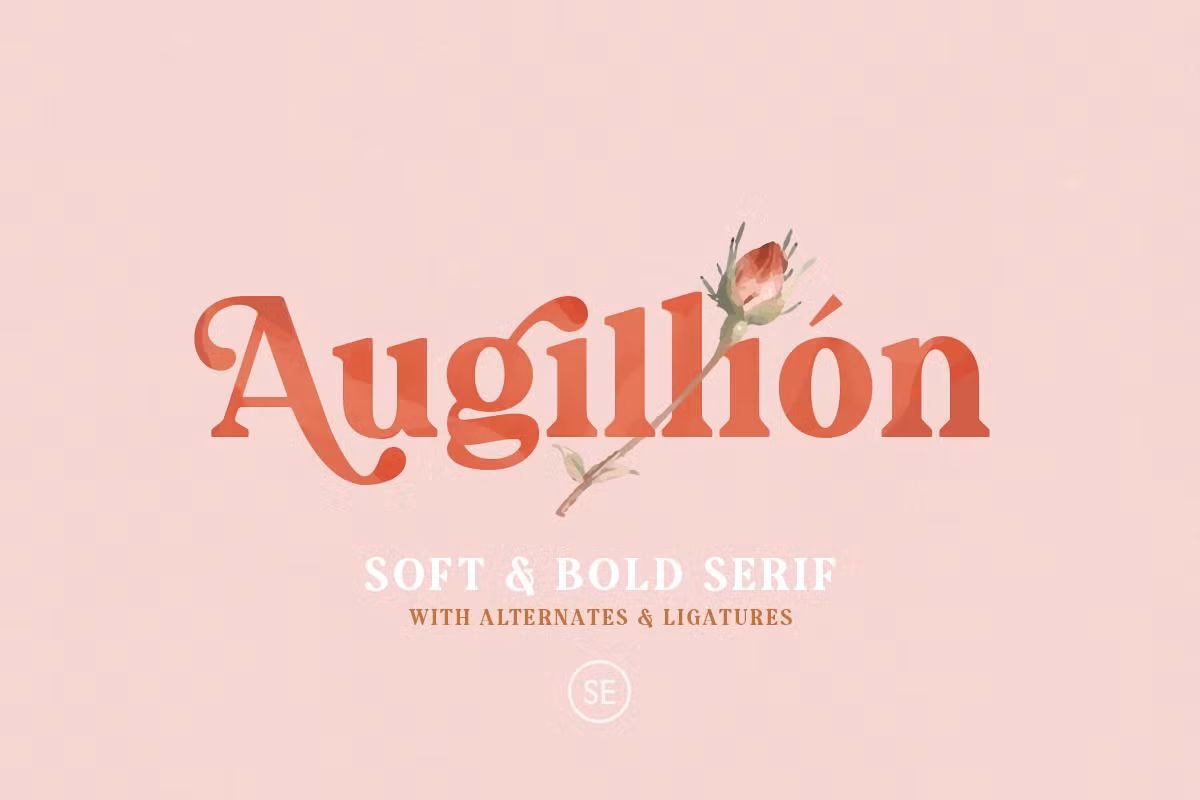
Introducing Augillion Soft Bold Serif Free Download, a modern and bold serif typeface designed by Sarid Ezra. This font features a collection of ligatures and alternates that enhance its versatility and uniqueness, making it perfect for presentations, logos, branding, and editorial designs. Its soft, bold characteristics provide a contemporary yet elegant appeal to any project. Download Augillion Soft Bold Serif Free Download to explore its features in personal projects. For commercial use, please ensure you purchase the appropriate license. Elevate your designs with the distinctive style of Augillion Soft Bold Serif Free Download